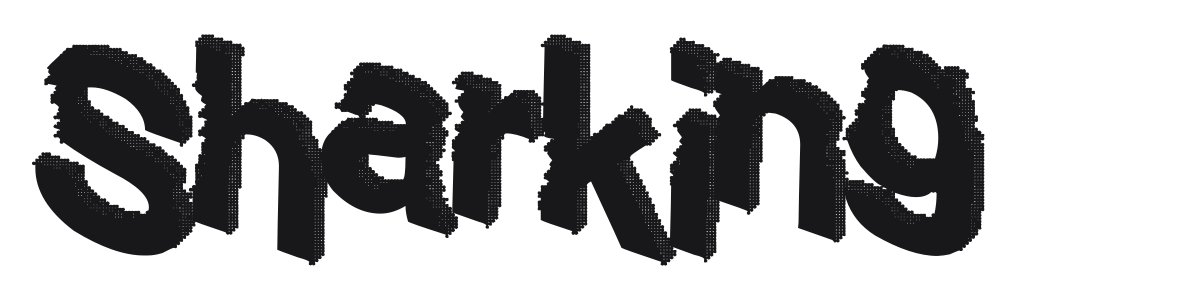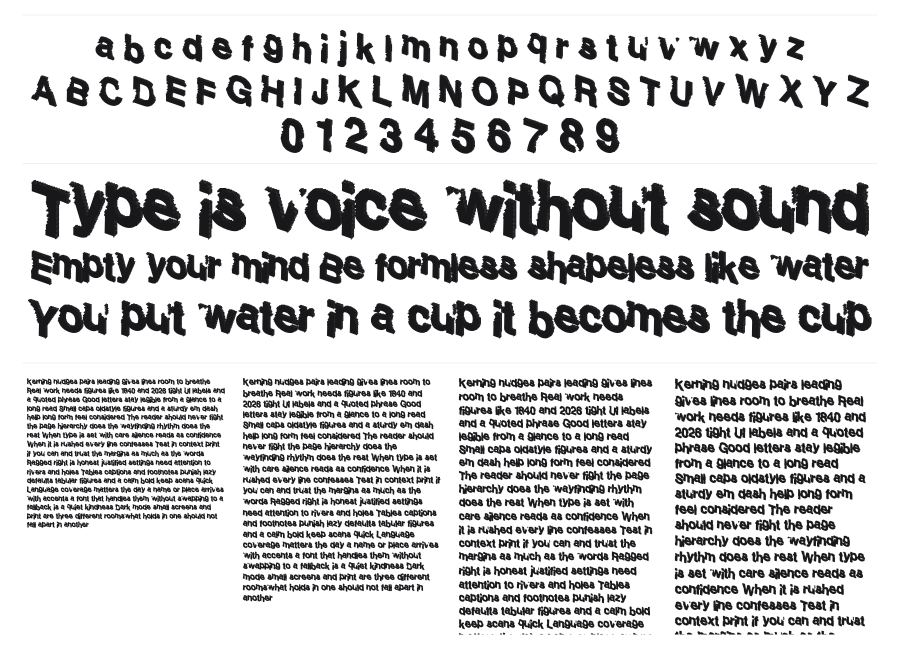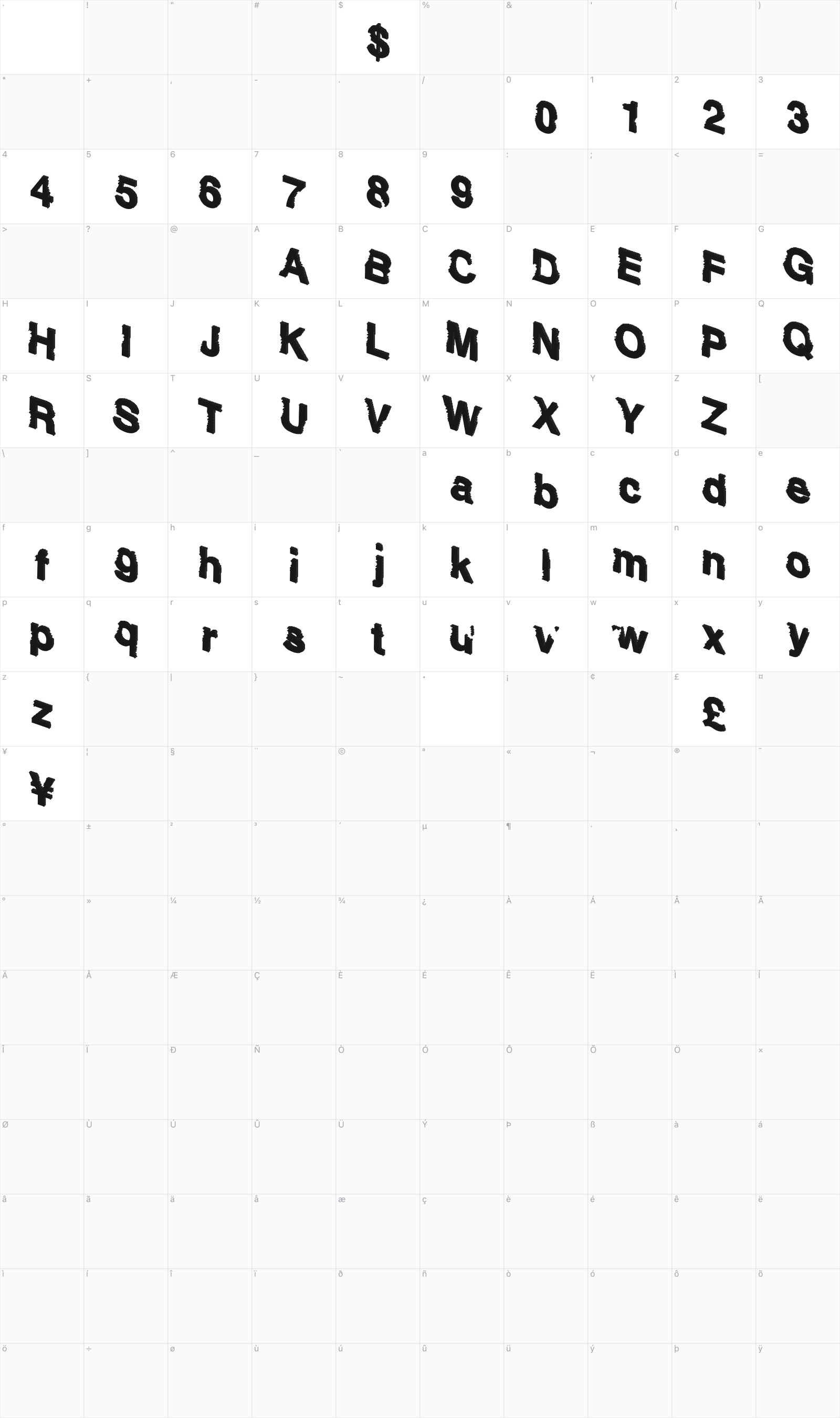
Sharking
Sharking is a heavy rounded display font coated in a rough, eroded texture that makes every character look worn and weathered. The bold chunky shapes lean casual and approachable, but the gritty surface treatment pulls it into grunge territory. A strong choice for music, gaming, or anything that wants a raw, underground energy.